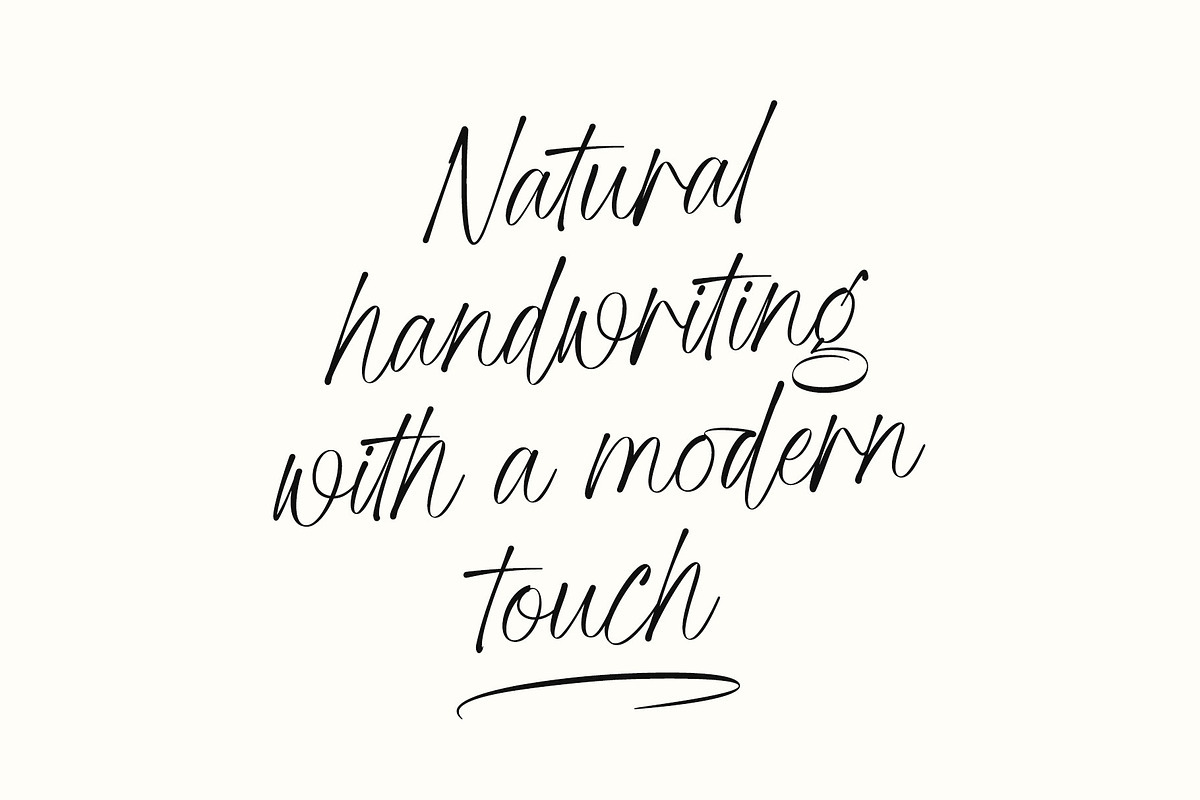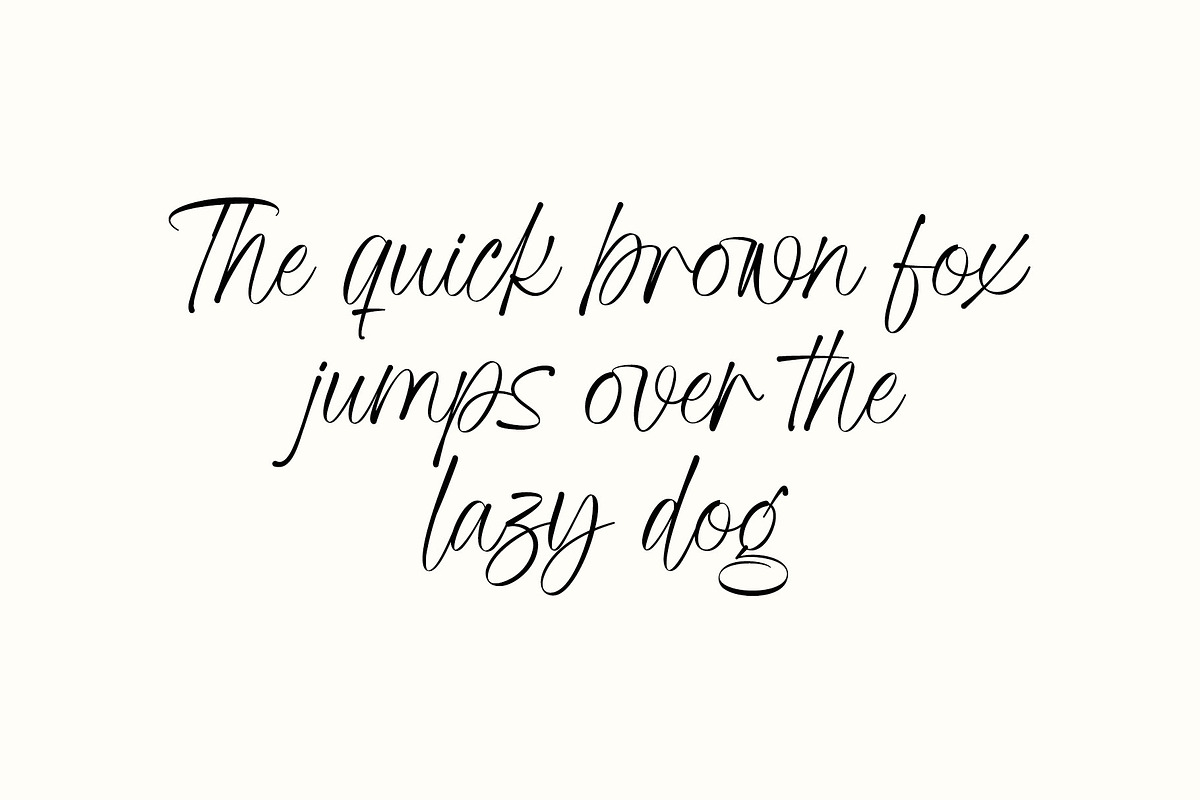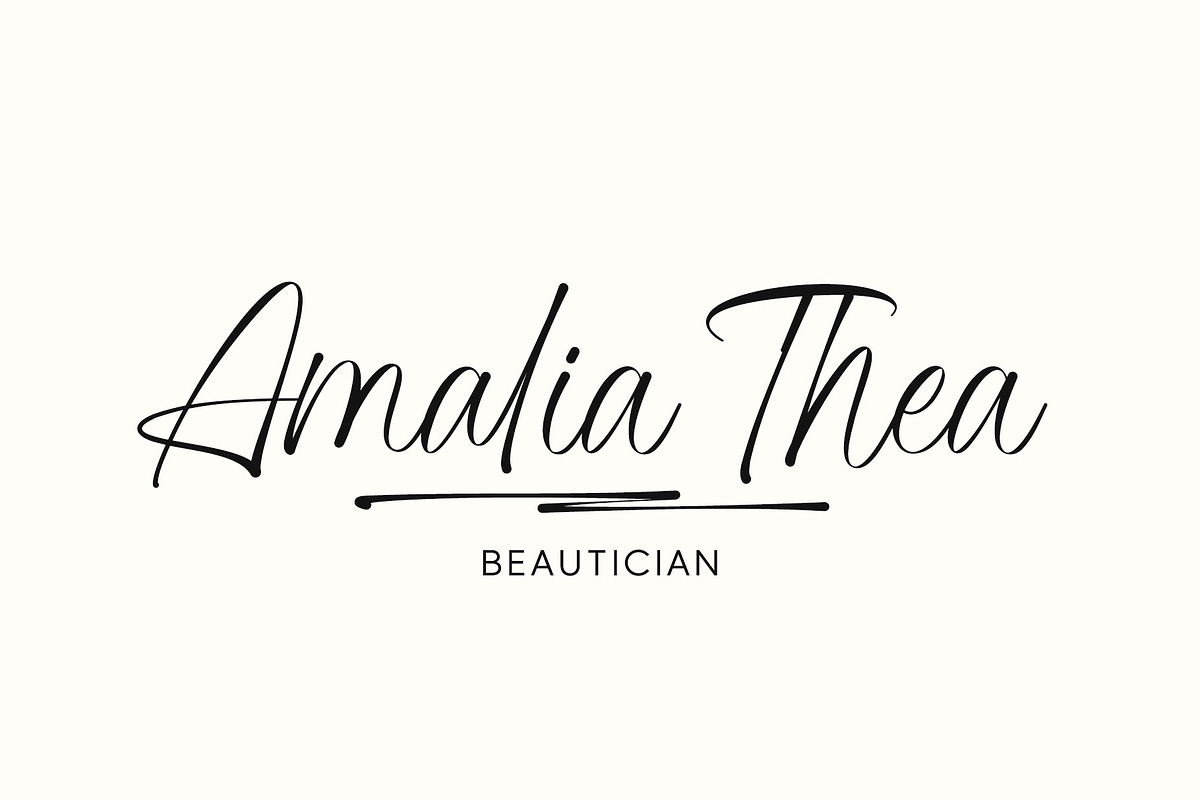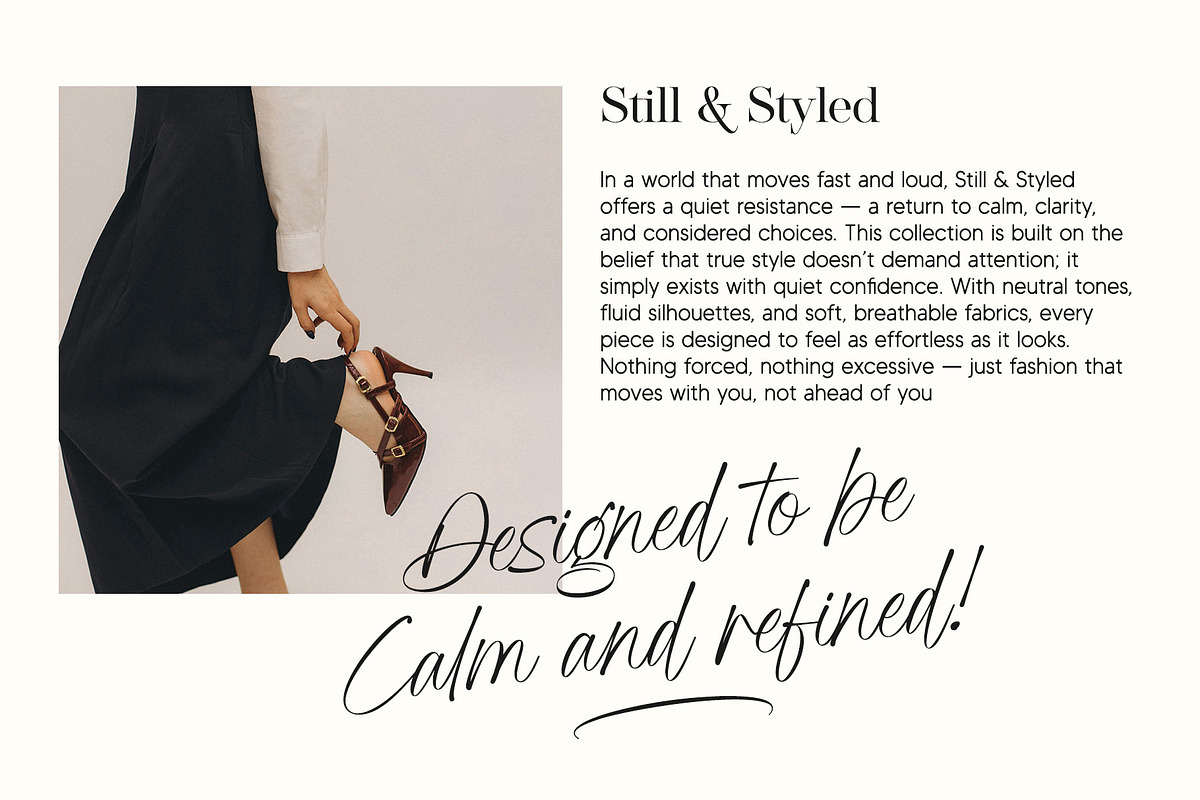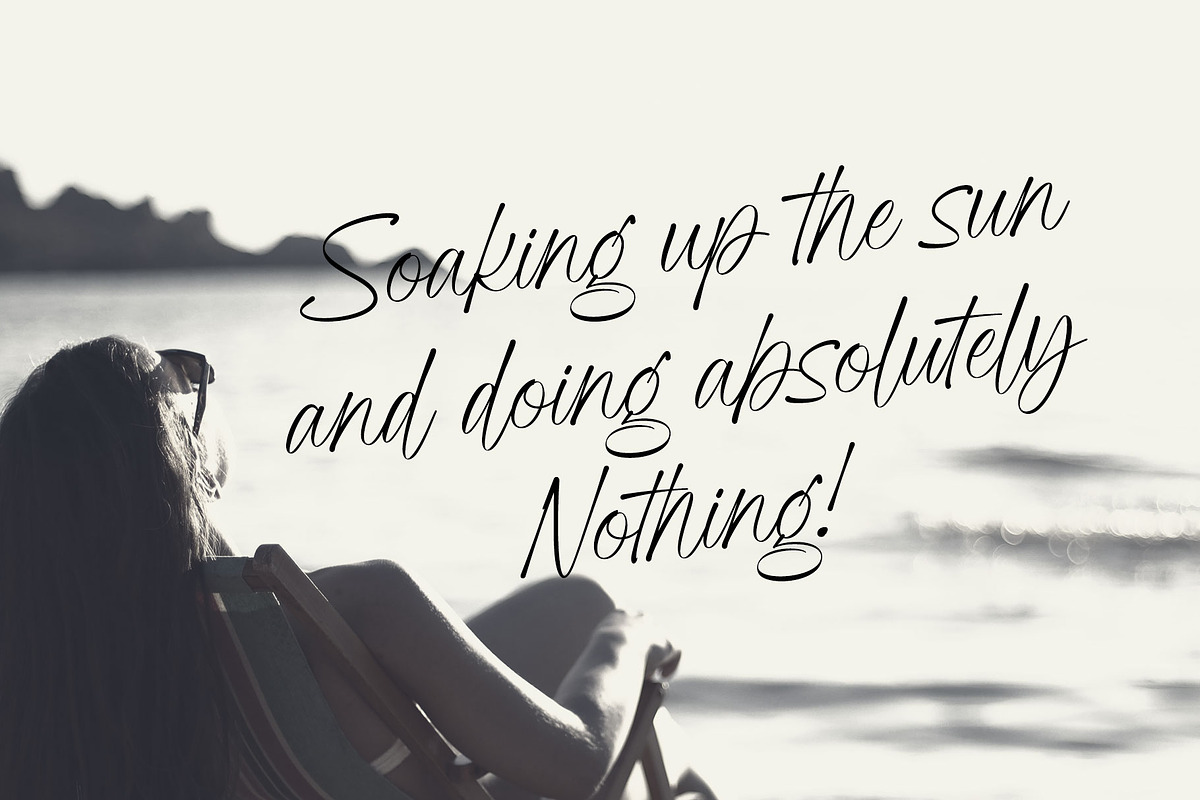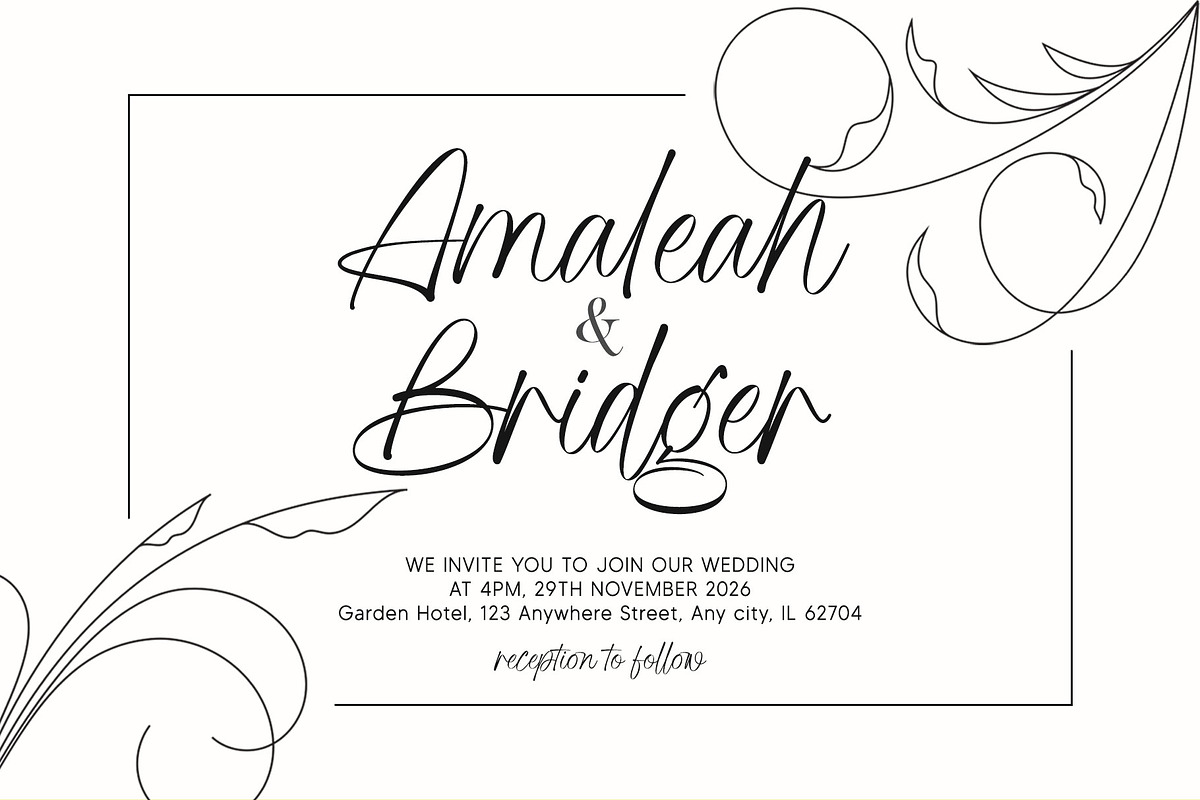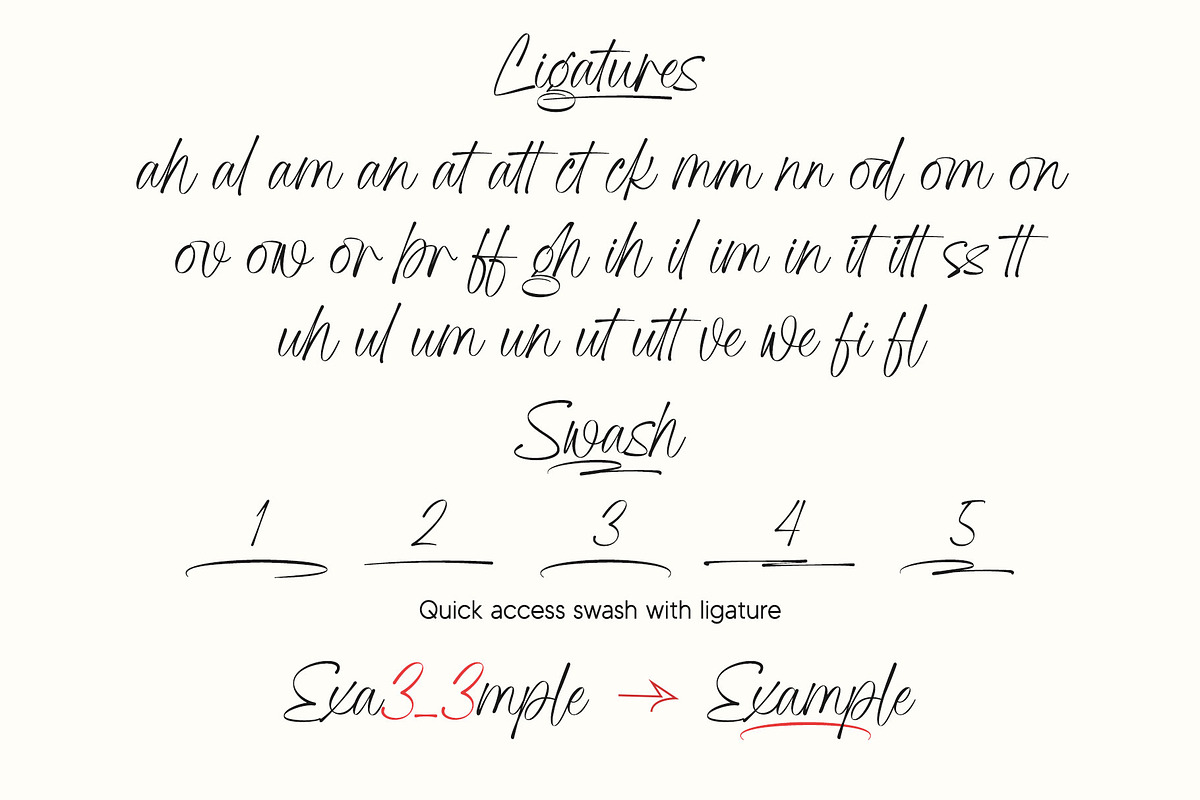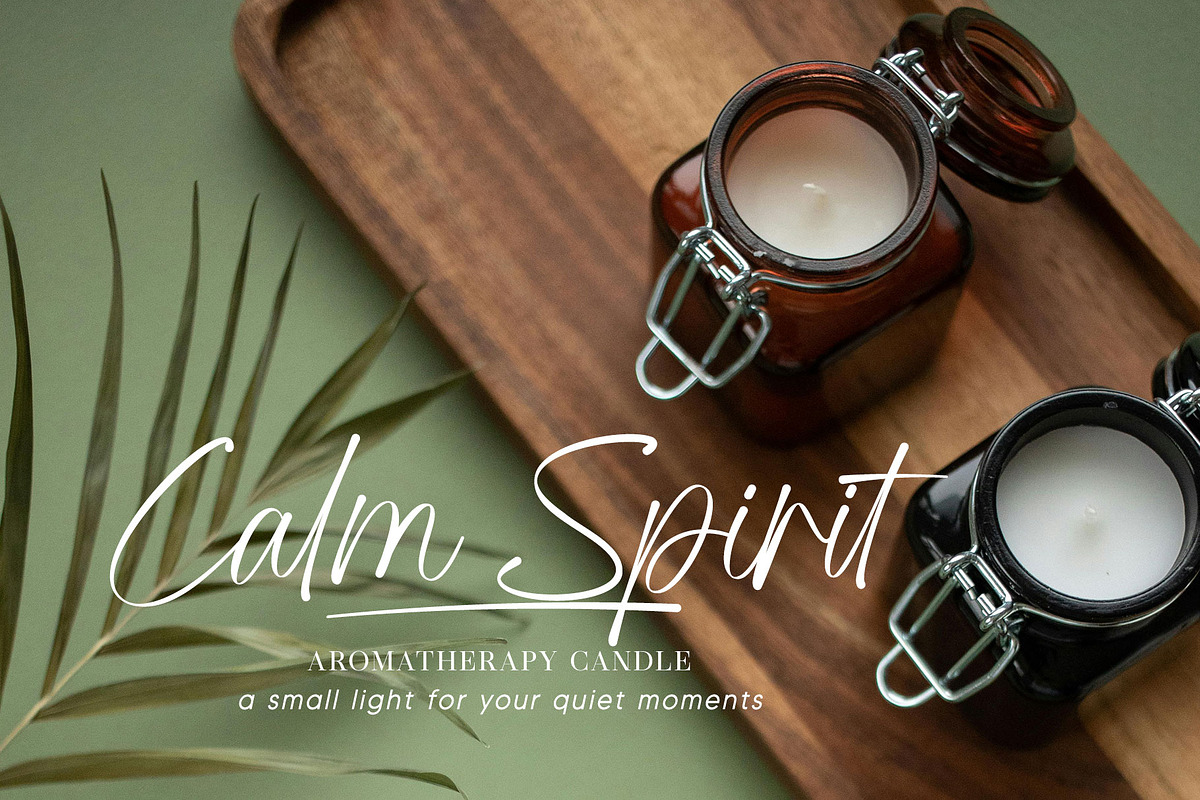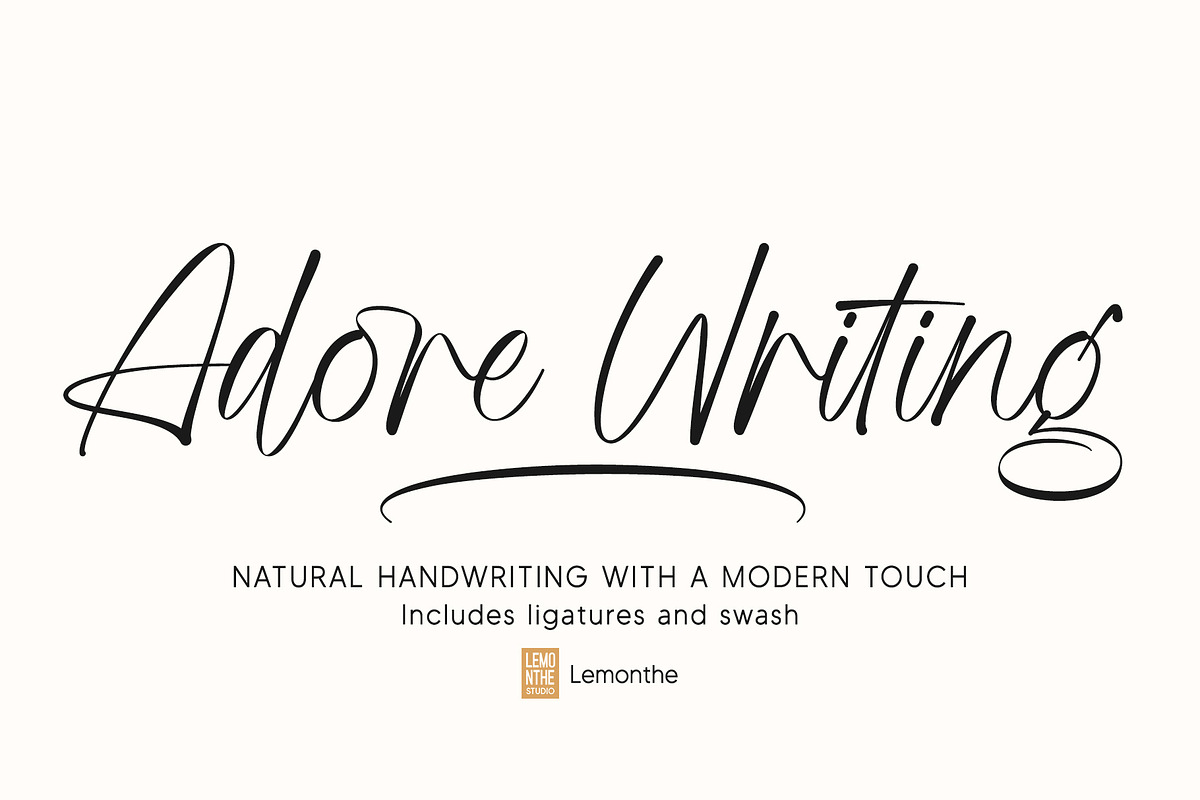
Adore Writing | Modern Script
Adore Writing is a handwritten font with an elegant and modern style. Featuring smooth strokes and flowing letterforms, it offers a clean yet naturally handwritten feel. Perfect for a wide range of design needs such as logos, wedding invitations, product branding, social media quotes, and packaging. It includes ligatures and swashes to enhance the look of your text and add creative variety.
Quick access swash with ligature:
- Add number (1–5) + underscore + number (1–5)
- Example: 1_1, 2_2, 3_3, 4_4, 5_5